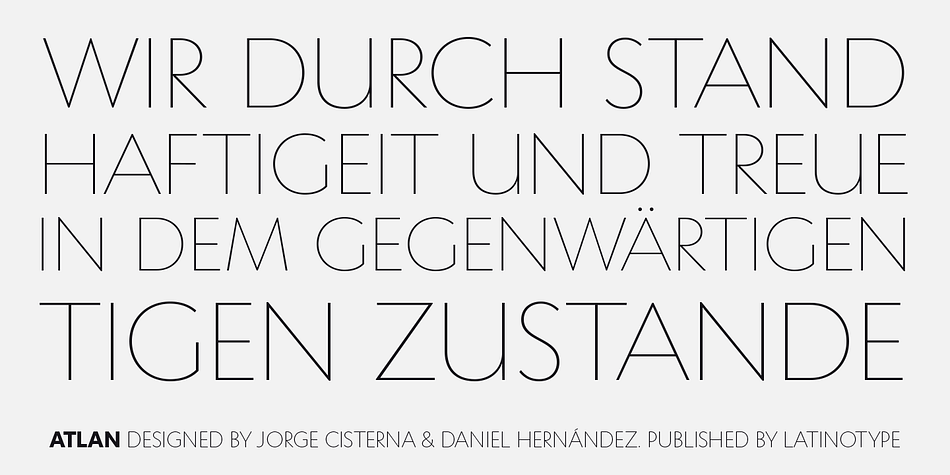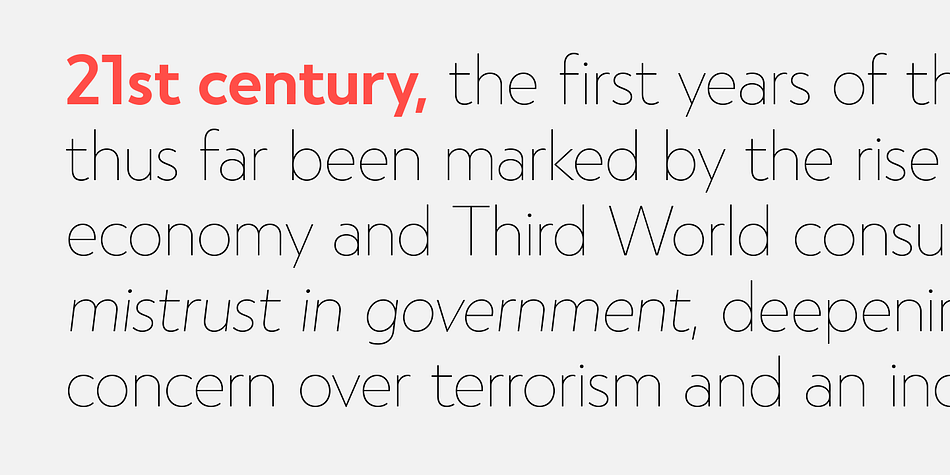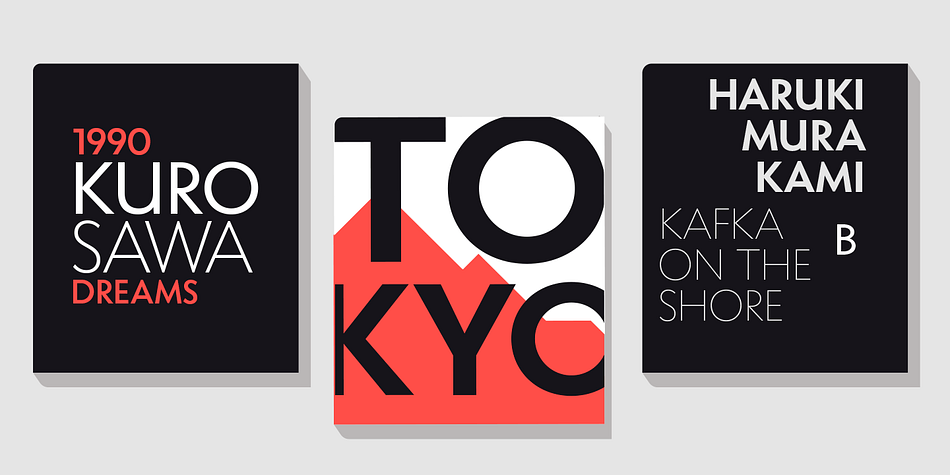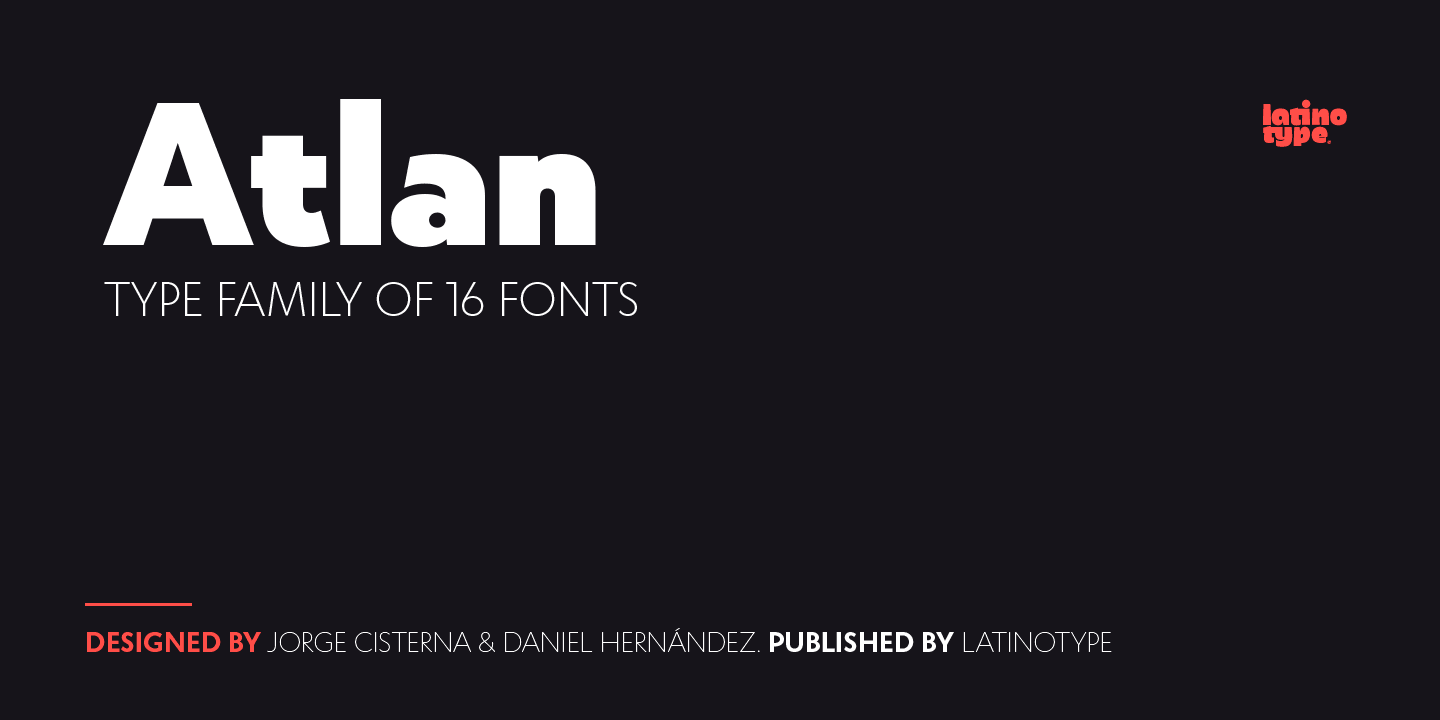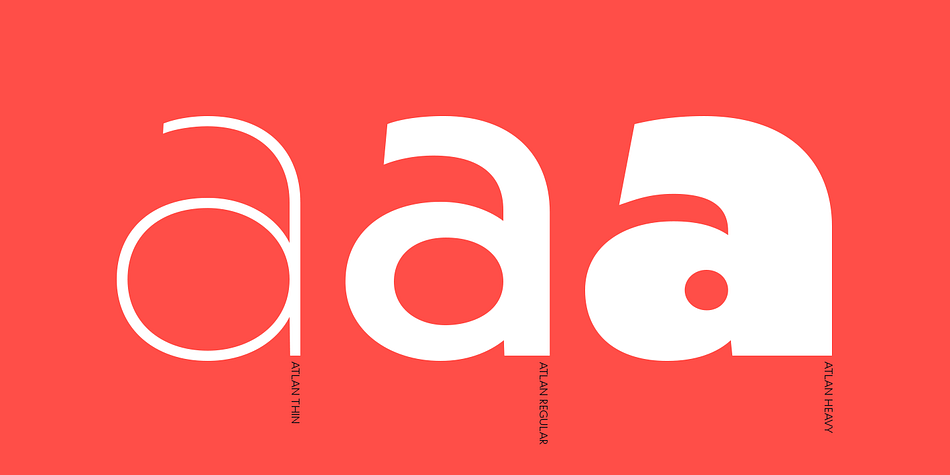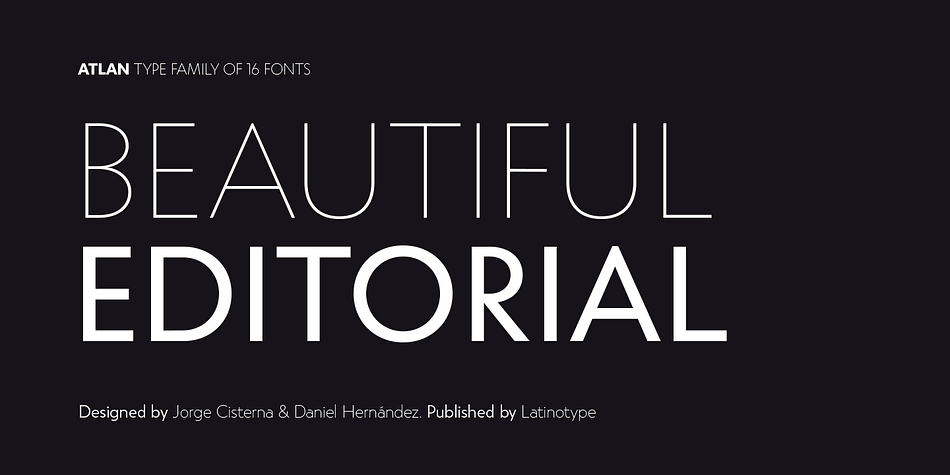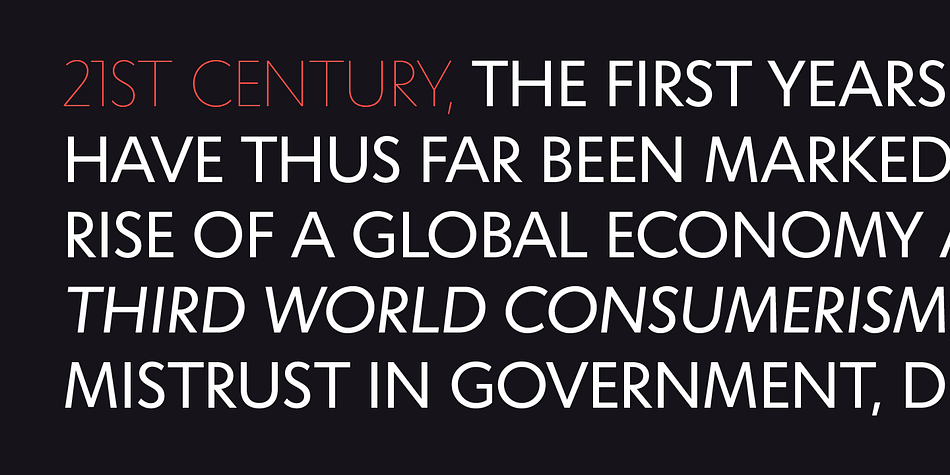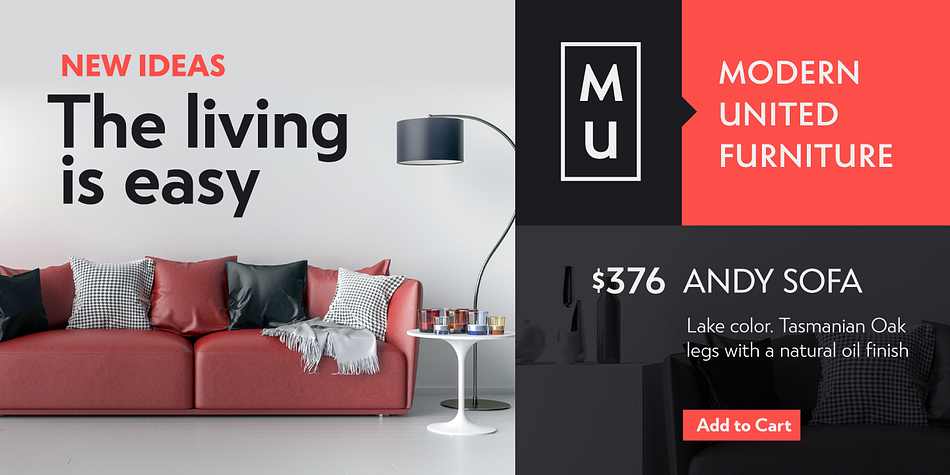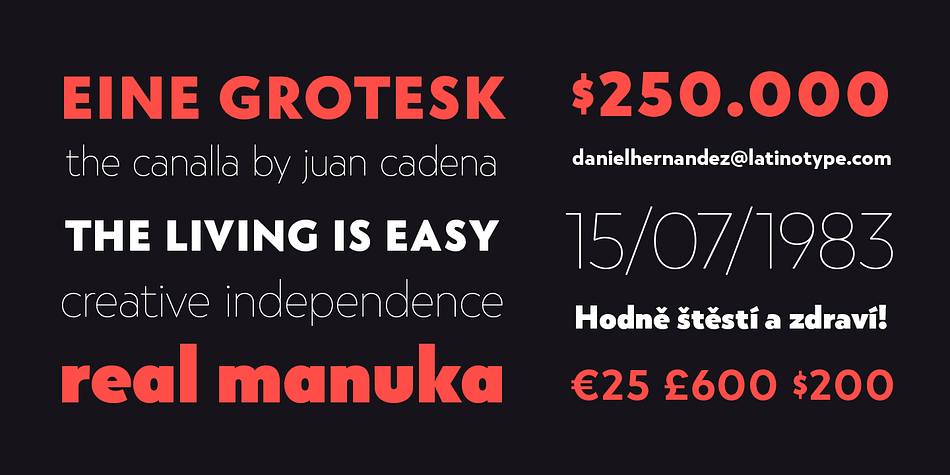
Designed by Jorge Cisterna and Daniel Hernández, Atlan is a sans serif font family. This typeface has sixteen styles and was published by Latinotype.
Atlan-a Latin ‘spin-off’ of classic geometric sans typefaces.
Remembering typefaces like ‘Kabel’ by Rudolf Koch while paying attention to current design needs was the starting point for ‘Atlan’-a simple, elegant and appealing font.
This typeface is based on highly expressive sans-serif geometric fonts of the 1920s. We challenged ourselves to reinterpret these characteristics without losing expressiveness in order to create a functional and versatile design. This process resulted in a font, with display features, well-suited for light, uniform-coloured texts.
The family offers a variety of styles from the elegant Thin weight-ideal for publishing and corporate websites-to the Heavy variant (perfect for logotypes and packaging), which reveals the stylistic elements of the typeface.